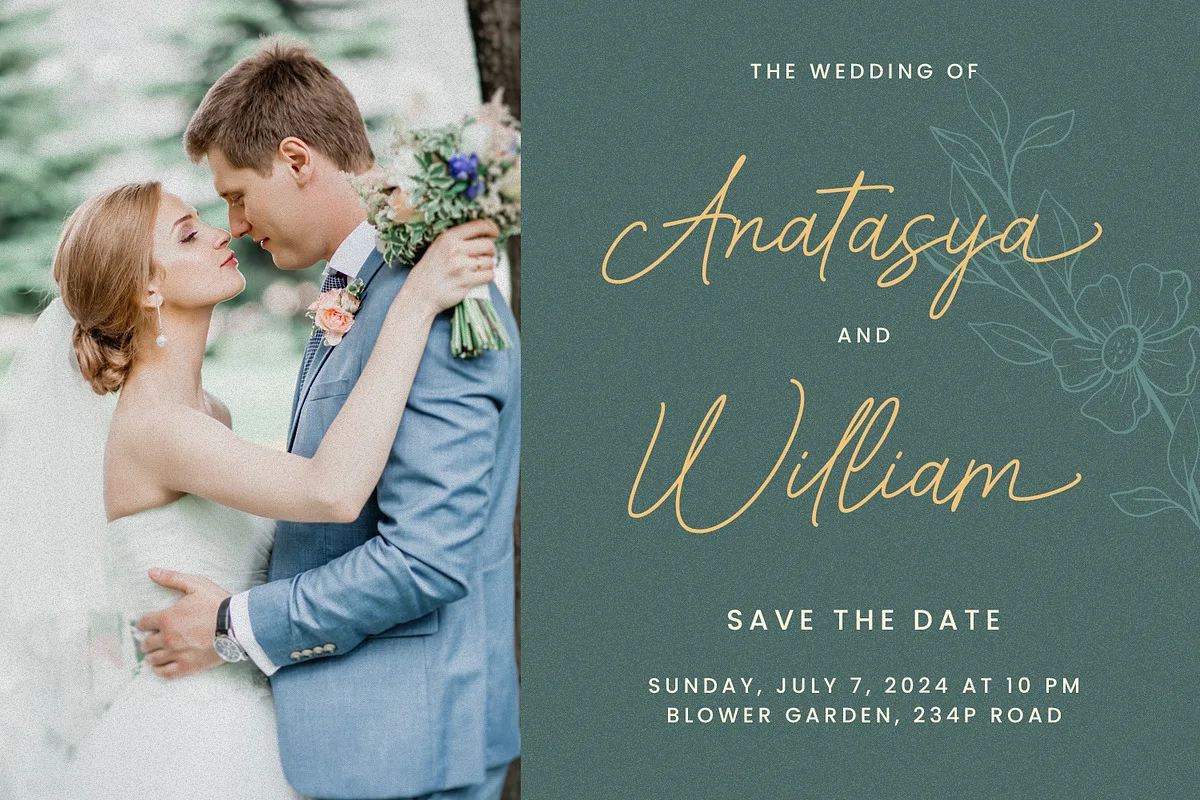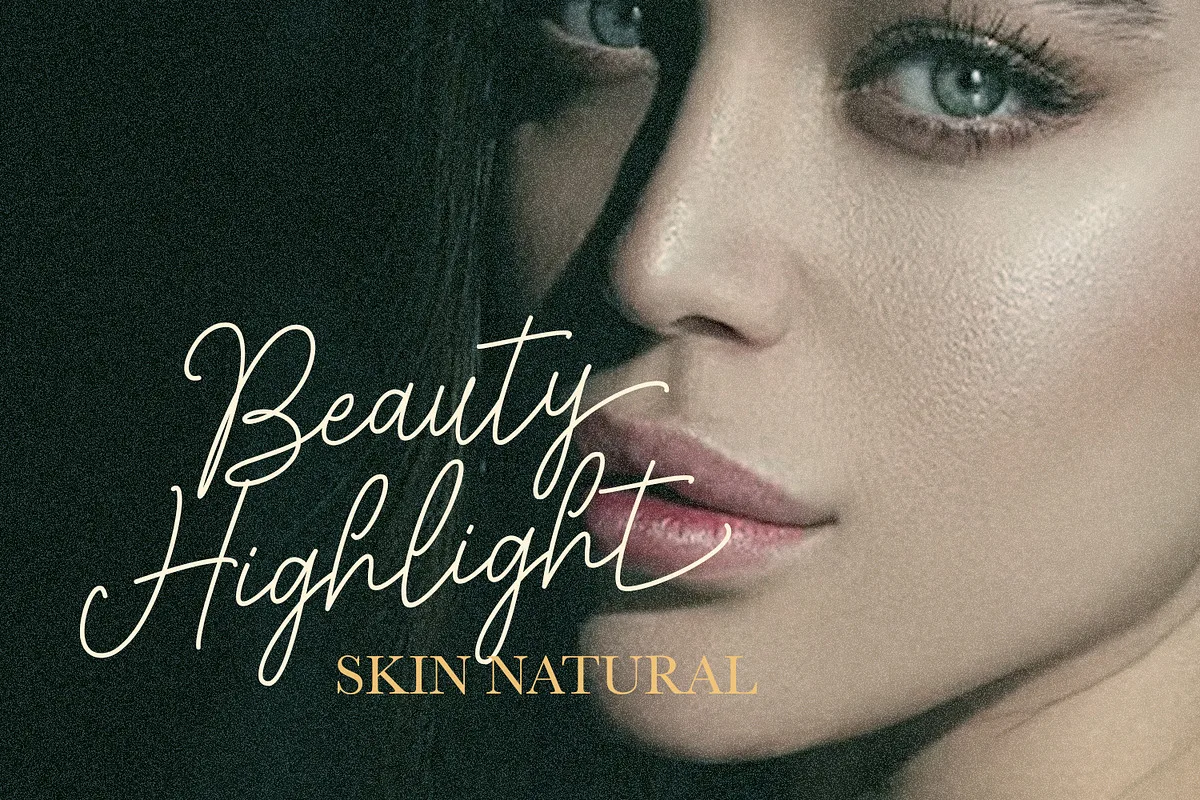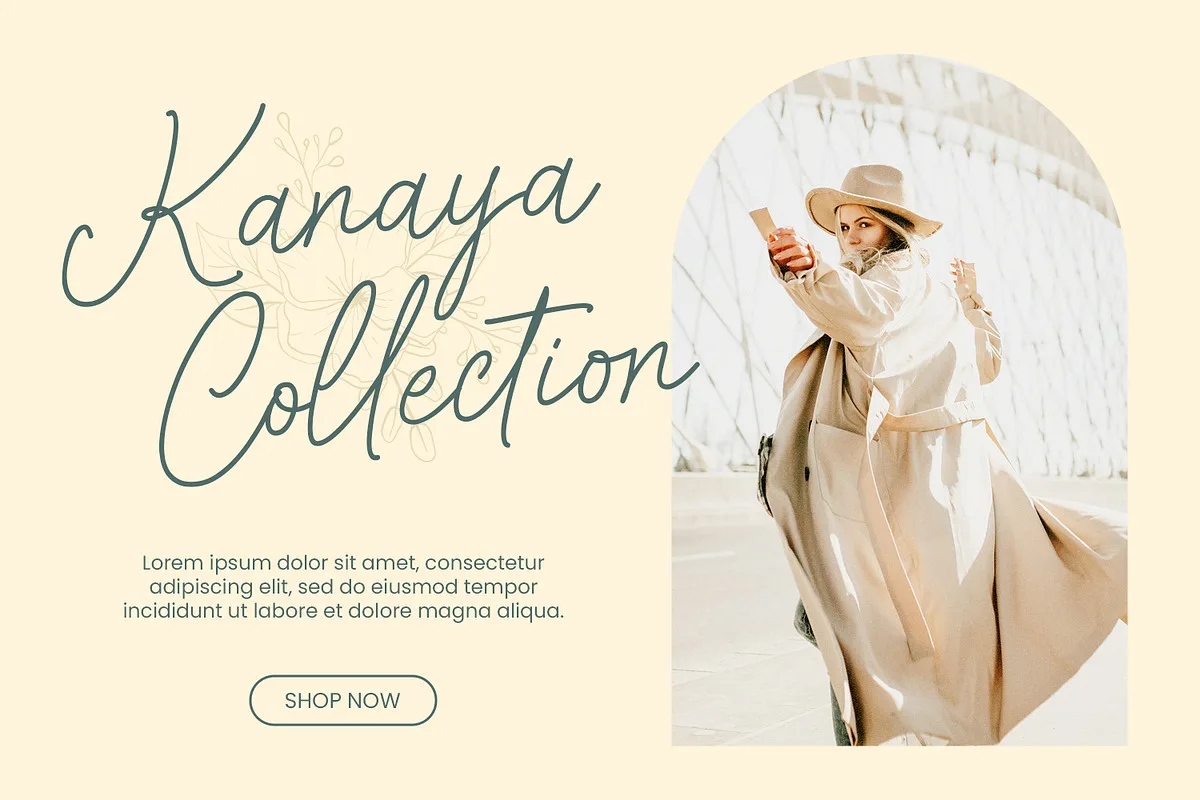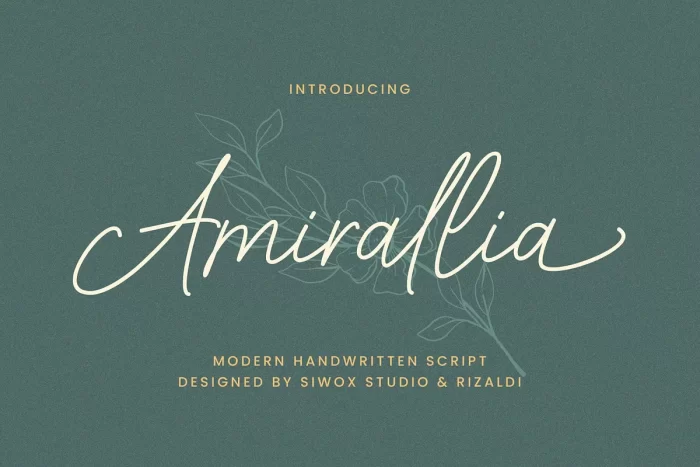
Introducing Amirallia, a monoline script font full of character and a few twists. It has the clean minimalism of a monoline font and the originality of handwriting. This font is PUA encoded which means you can access all glyphs and swashes effortlessly!
- Uppercase & Lowercase
- Number, Symbol & Punctuation
- Stylistic Alternate
- Discretionary Ligatures
- Multilingual